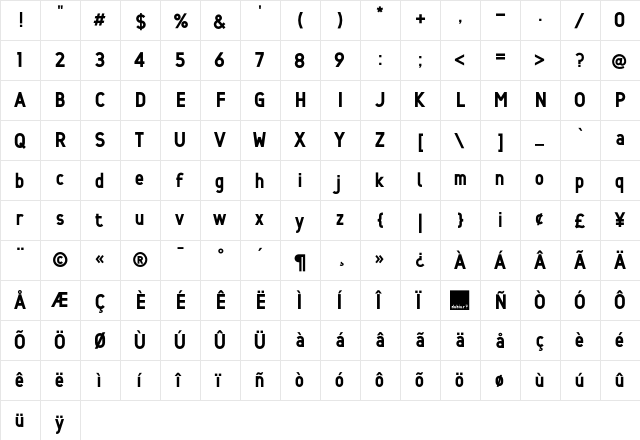
Min Four
Design Context for Min Typeface
Min takes a measured approach to typography — its balanced proportions and neutral character make it a reliable workhorse for both digital and print work.